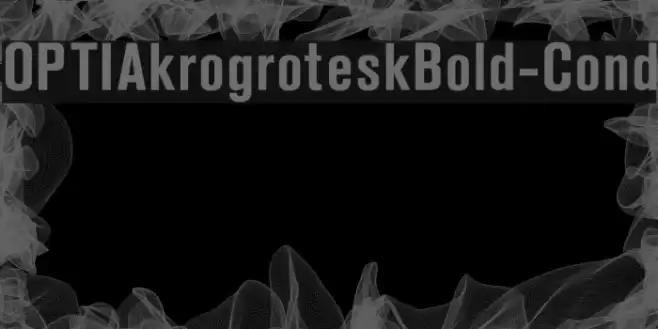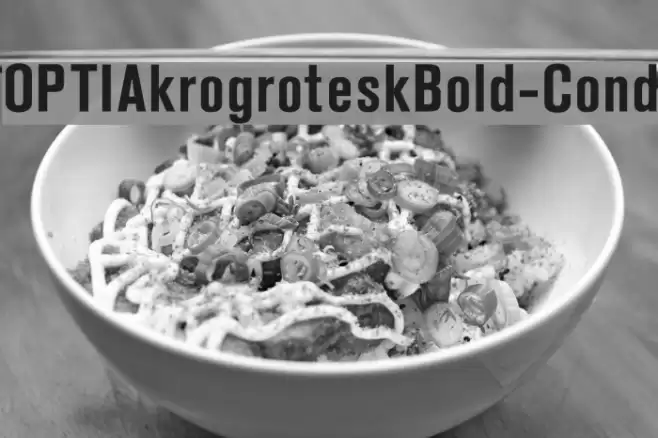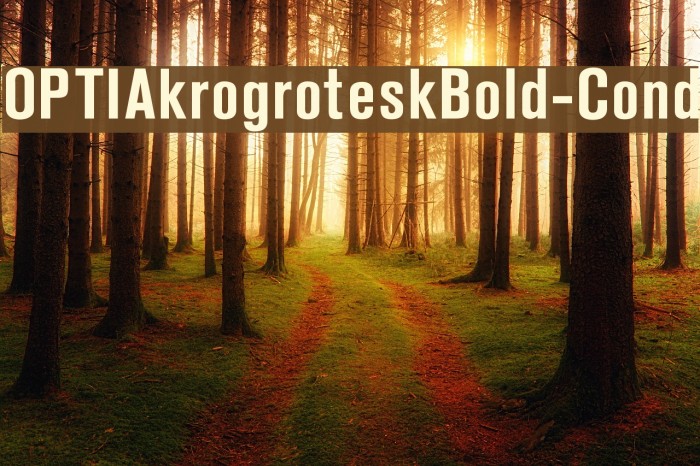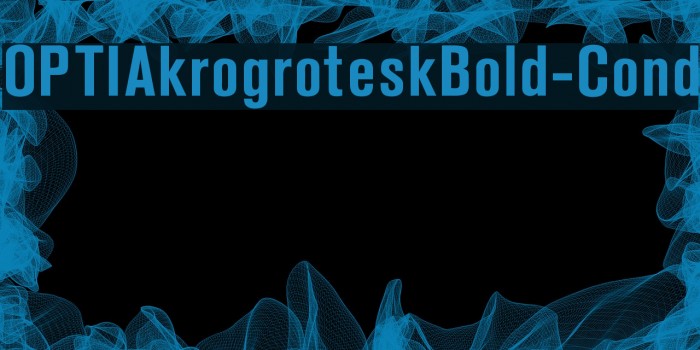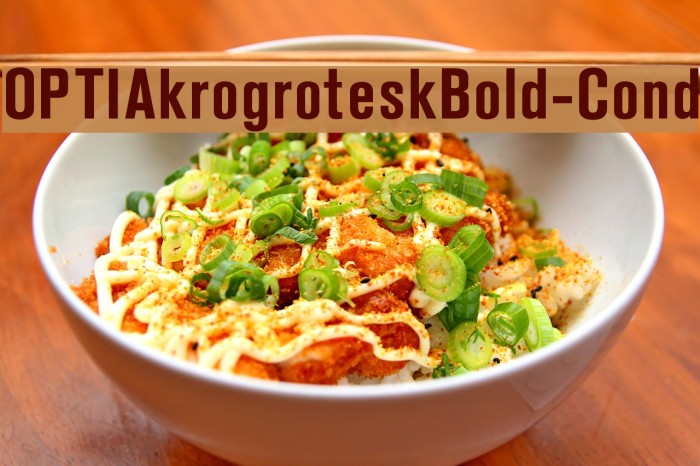
OPTIAkrogroteskBold-Cond Font
OPTIAkrogroteskBold-Cond Description
This typeface exhibits a bold and condensed style, characterized by its strong, geometric shapes and uniform stroke widths. The uppercase and lowercase letters maintain a consistent height, contributing to a clean and modern appearance. The numerals are equally bold, ensuring readability and impact. Special characters are designed with the same attention to detail, providing a cohesive look across all glyphs. The font's condensed nature allows for efficient use of space, making it ideal for headlines and other applications where space is limited. Its boldness ensures that it stands out, capturing attention effectively.
A bold, condensed typeface with geometric shapes and uniform strokes from Uncategorized fonts.
- Proposed Projects: Ideal for headlines, posters, branding, and advertising where a strong visual impact is needed.